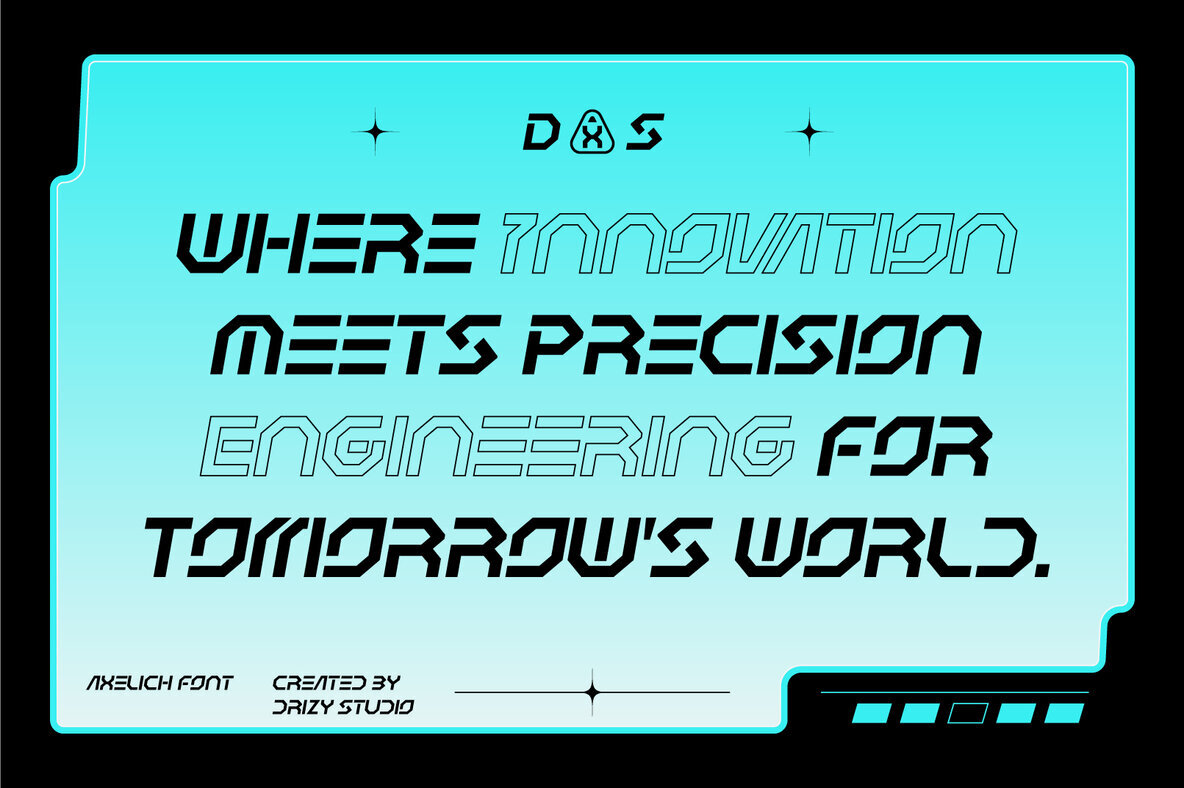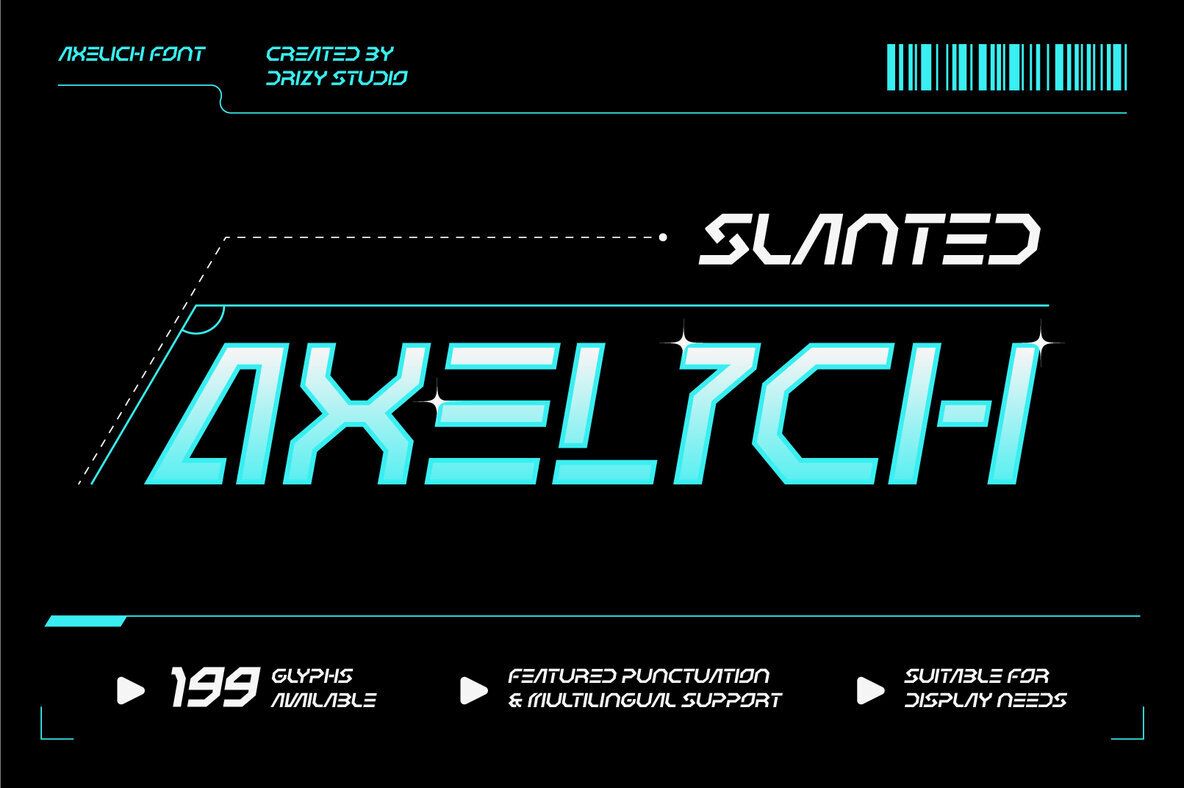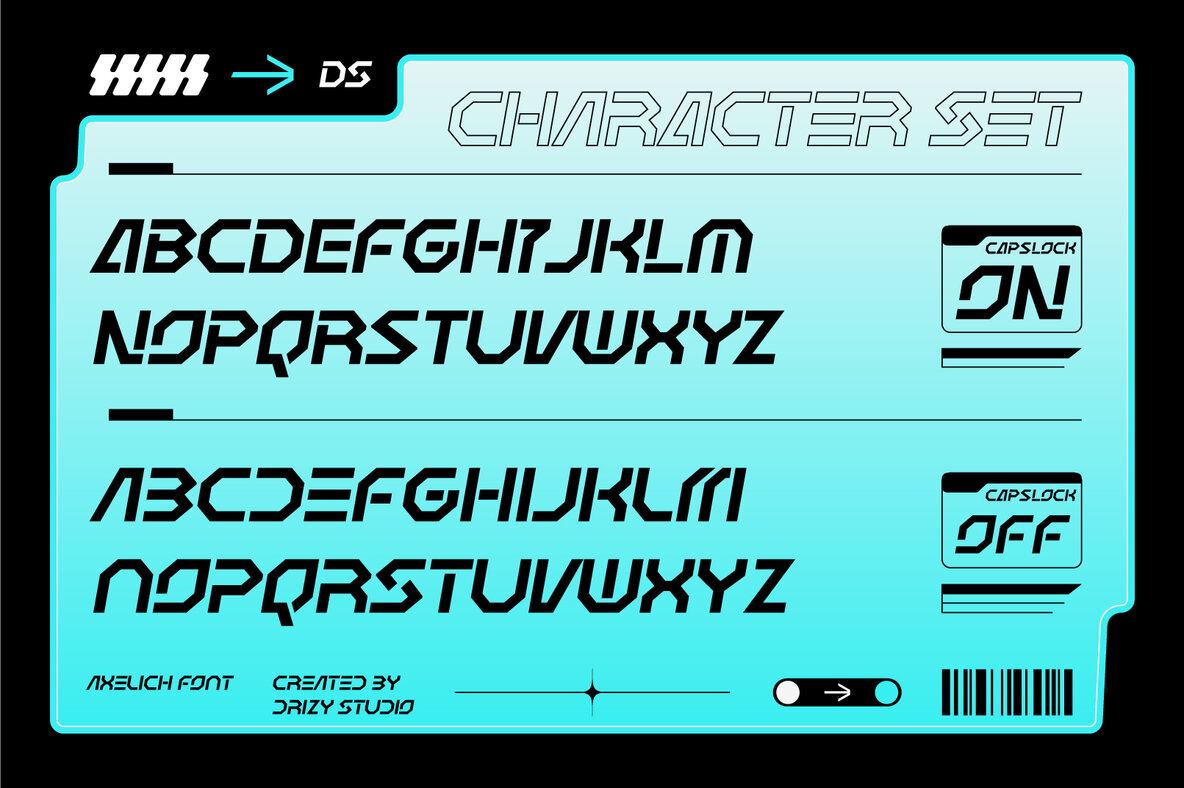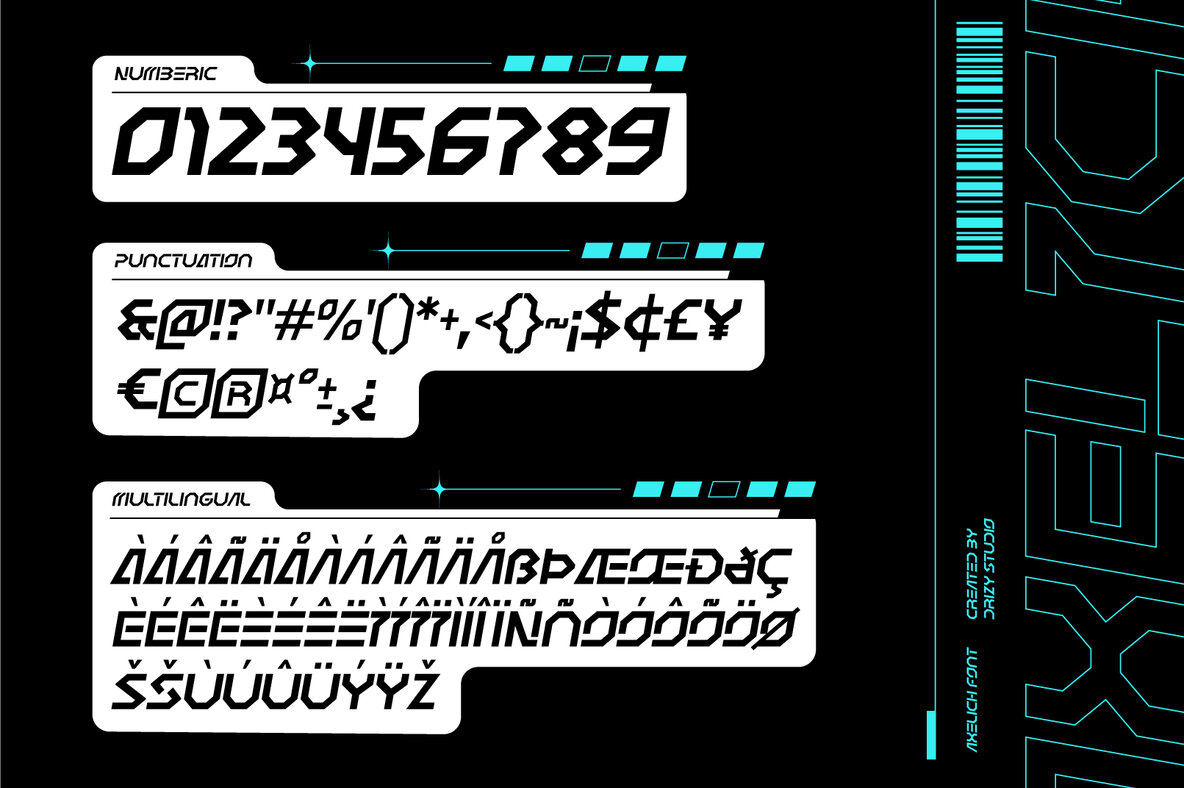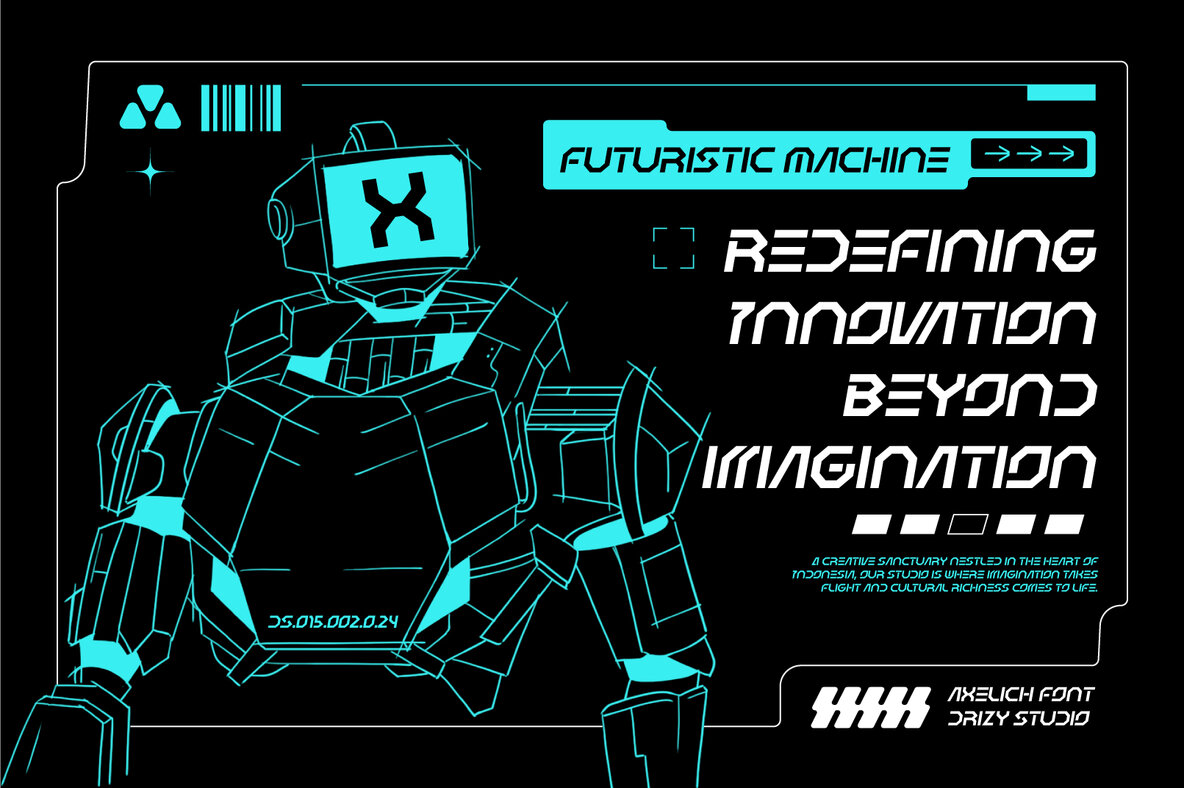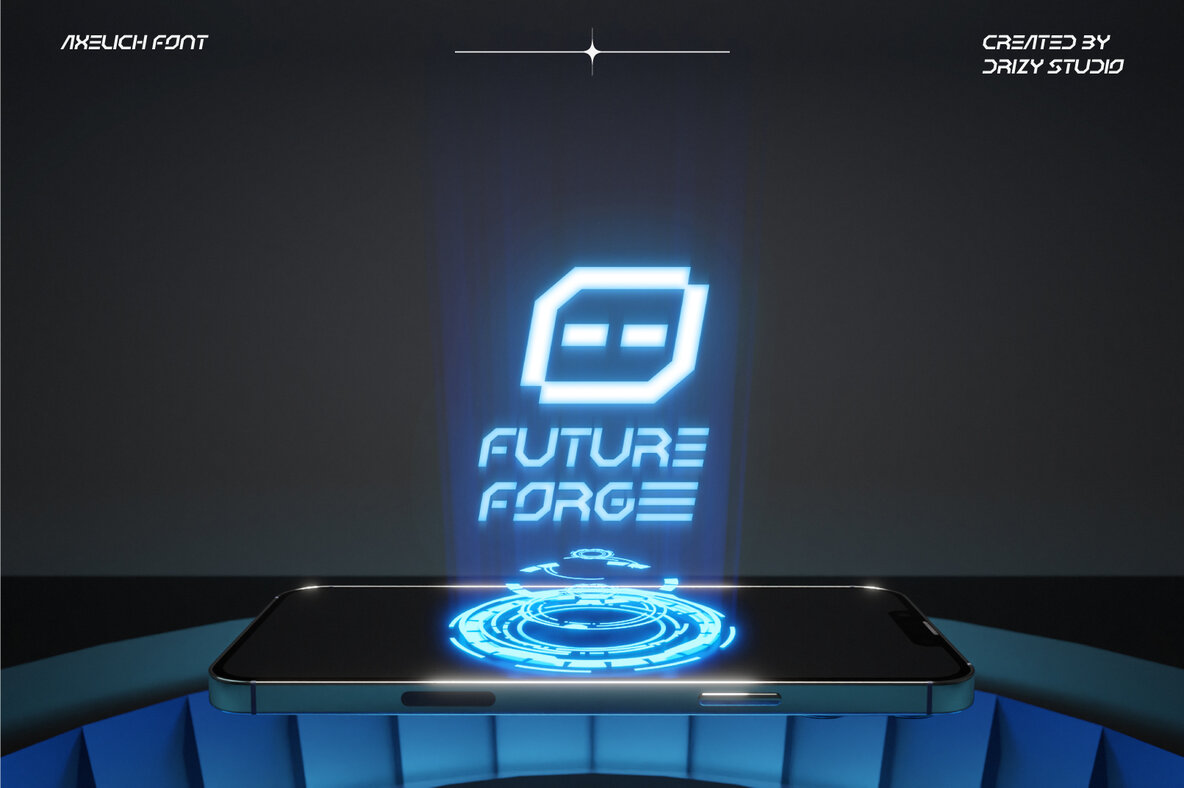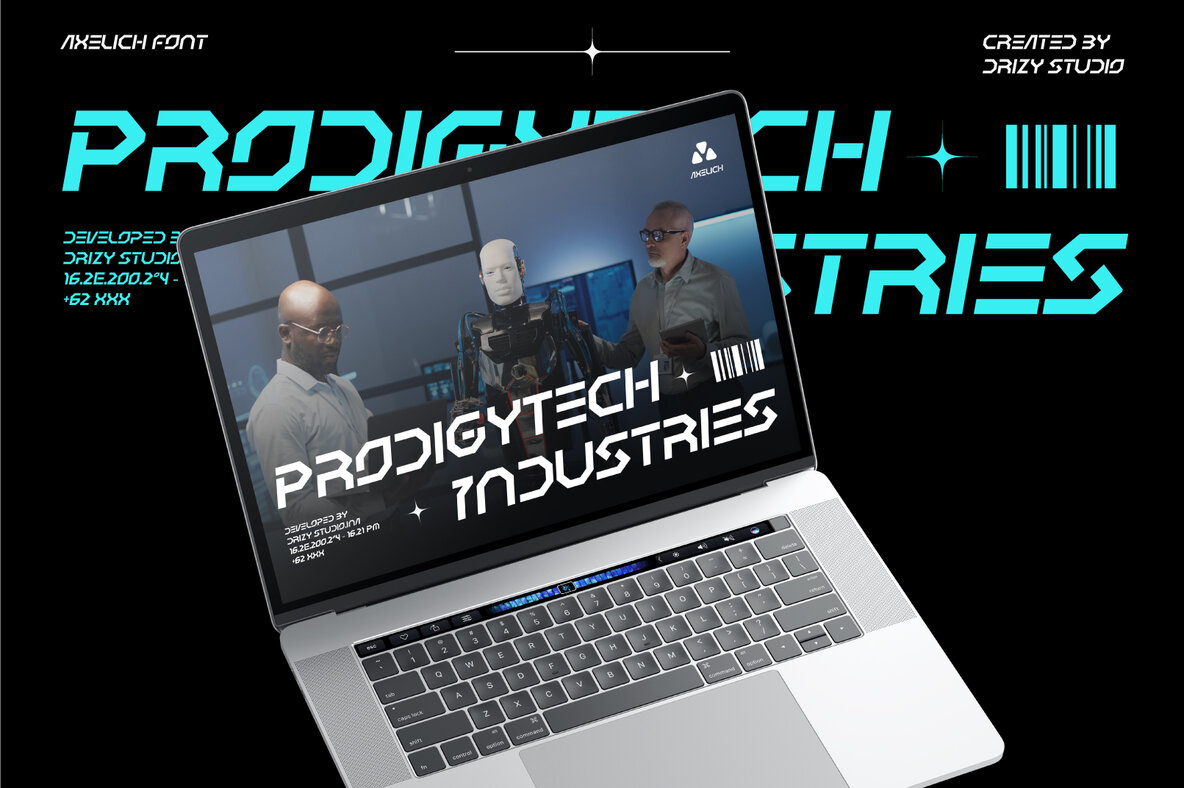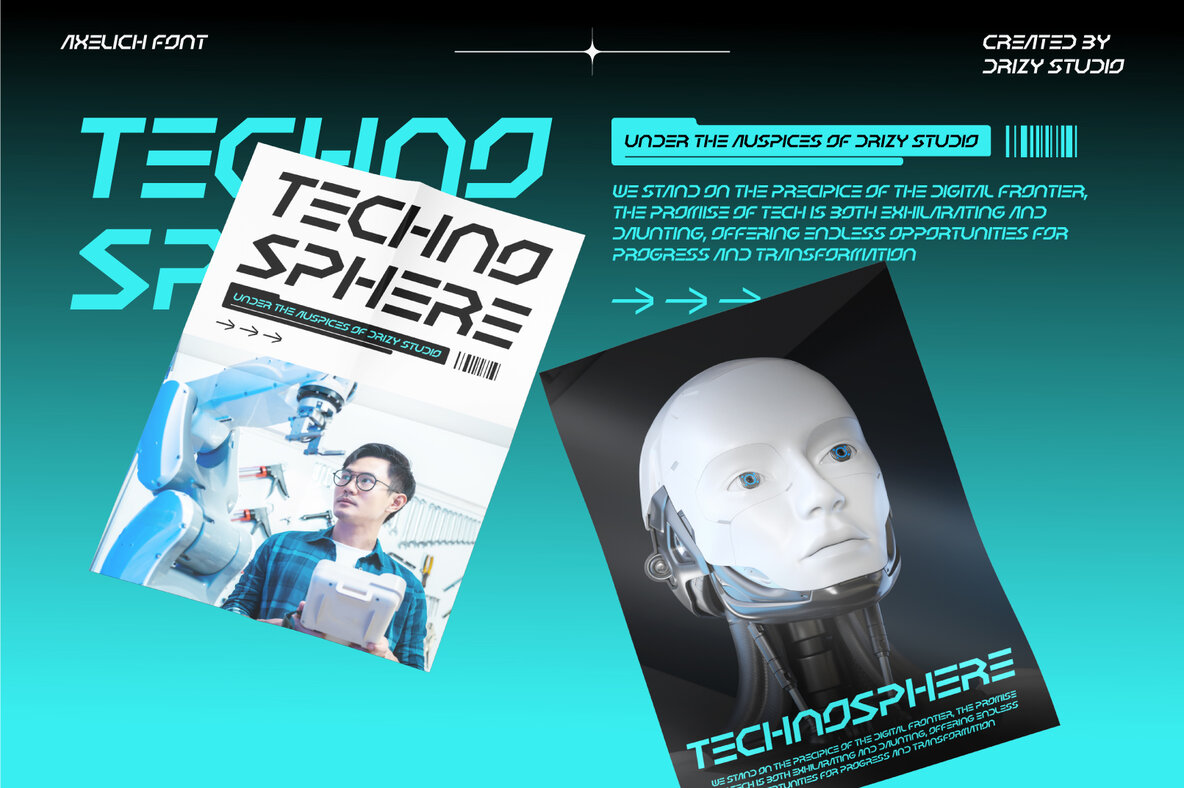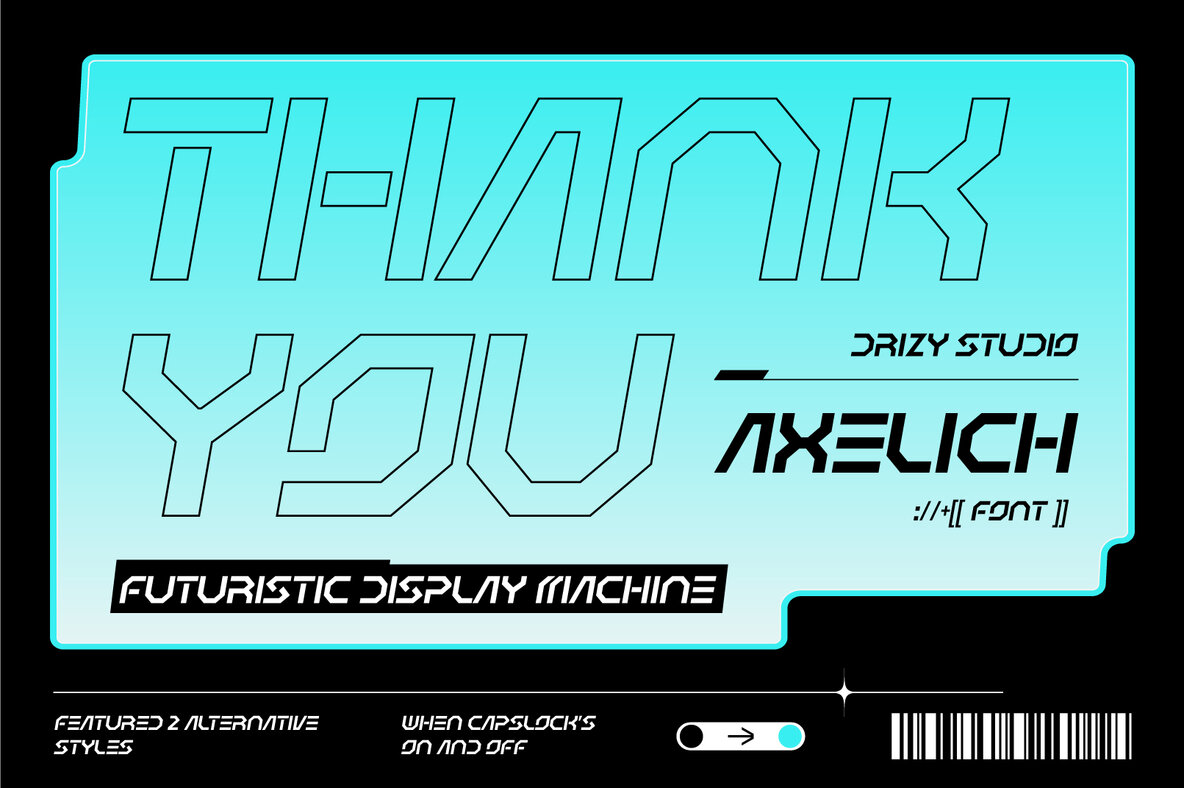
Axelich Font
Axelich Regular
Introducing Axelich, a cutting-edge typeface crafted by Drizy Studio that embodies the fusion of technology with modern aesthetics. This Futuristic Display Machine Font is meticulously designed to push the boundaries of typographic design, making it ideal for themes centered around the future and technology.Axelich: Futuristic Display Machine Font by Drizy Studio